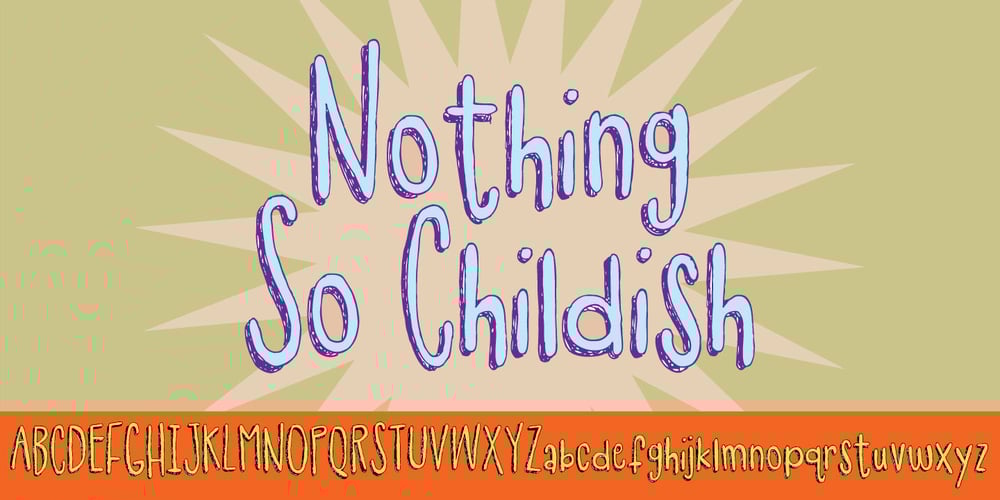
Nothing So Childish Font Family was designed by Jakob Fischer and published by PizzaDude.dk. Nothing So Childish contains 1 styles and family package options. If you’re looking for cuteness, something whimsical and unpredictable madness – then Nothing So Childish is something for you. The font is 100% handmade with a slightly dry pen. With a closer look, the font reveals several scribbles and scratches – only to make the font look more authentic! Your next birthday- or greeting card will love this font! ๐ Comes with ligatures which substitutes double letters!